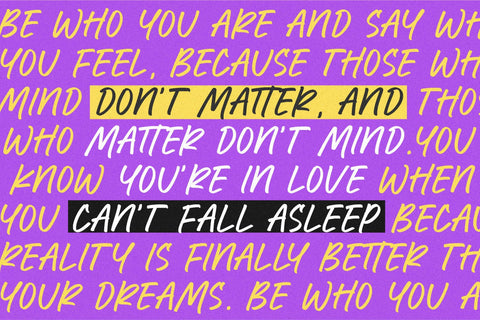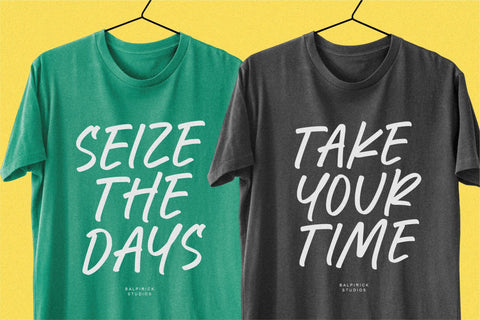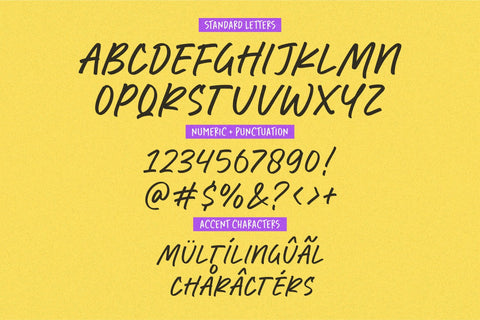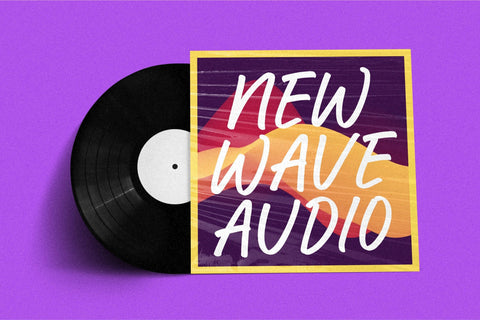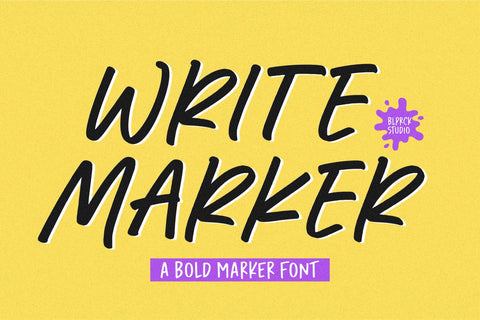
Write Marker Font
Write Marker is a Bold Marker Font.
Whether you’re using it for crafts, digital design, presentations, or making greeting cards, this font has the potential to become your favorite go-to font, no matter the occasion!
This font only has allcaps letters.